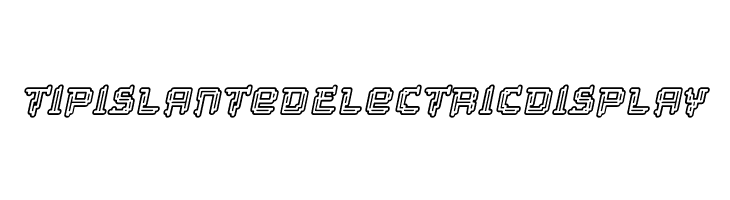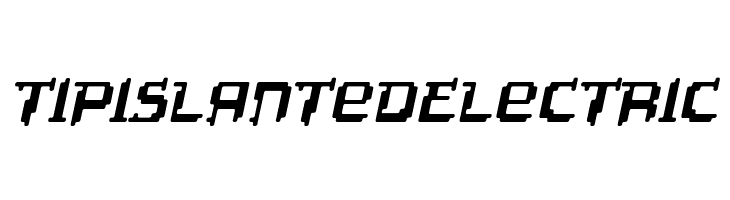
A bold, slanted font with an electric inline style and geometric structure.
A bold, angular, and slanted font with a modern, digital aesthetic.
A bold, slanted, electric font with a dynamic, three-dimensional appearance.